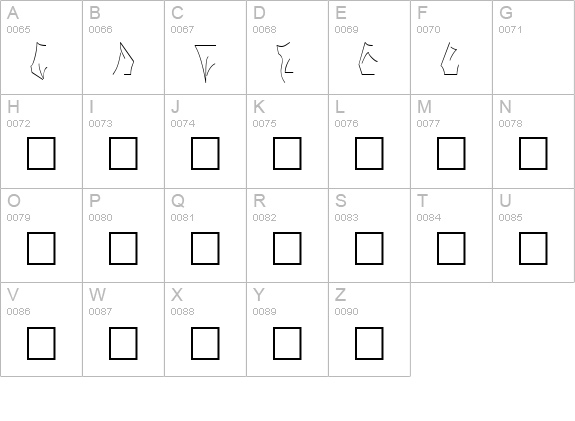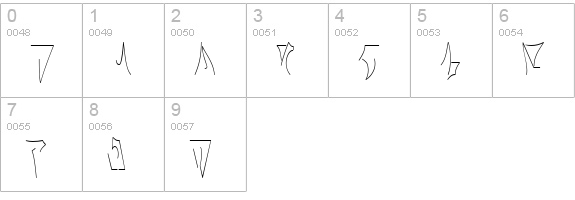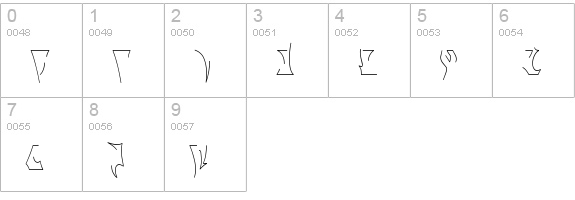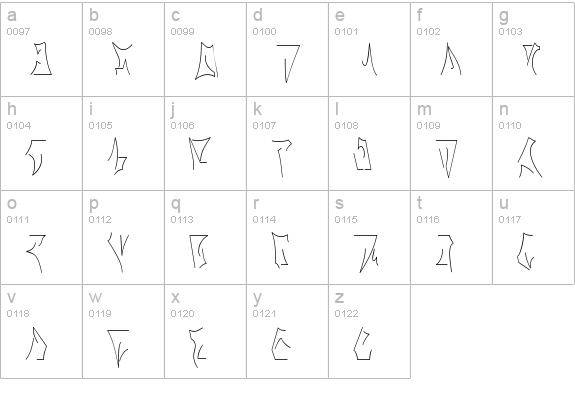
Klingo Font Details
Introducing Klingo font, a visually striking typeface that exudes modernity and elegance. With its sleek and sophisticated design, Klingo is the perfect choice for those seeking a contemporary yet timeless aesthetic. This versatile font is meticulously crafted with attention to detail, resulting in clean lines and well-balanced letterforms. Klingo font offers a wide range of weights and styles, allowing for endless creative possibilities. Whether you're designing a logo, crafting a headline, or enhancing your branding materials, Klingo's versatility will make your work stand out from the crowd. But what sets Klingo font apart is its unique combination of style and accessibility. Not only does it possess an undeniable visual appeal, but it is also available for free! Yes, that's right, Klingo font can be freely downloaded at FontsMarket.com, making it accessible to designers and creatives of all levels. So why wait? Elevate your designs with Klingo font's contemporary charm and enjoy the freedom of creativity that comes with it. Download Klingo font today and unlock a world of possibilities!